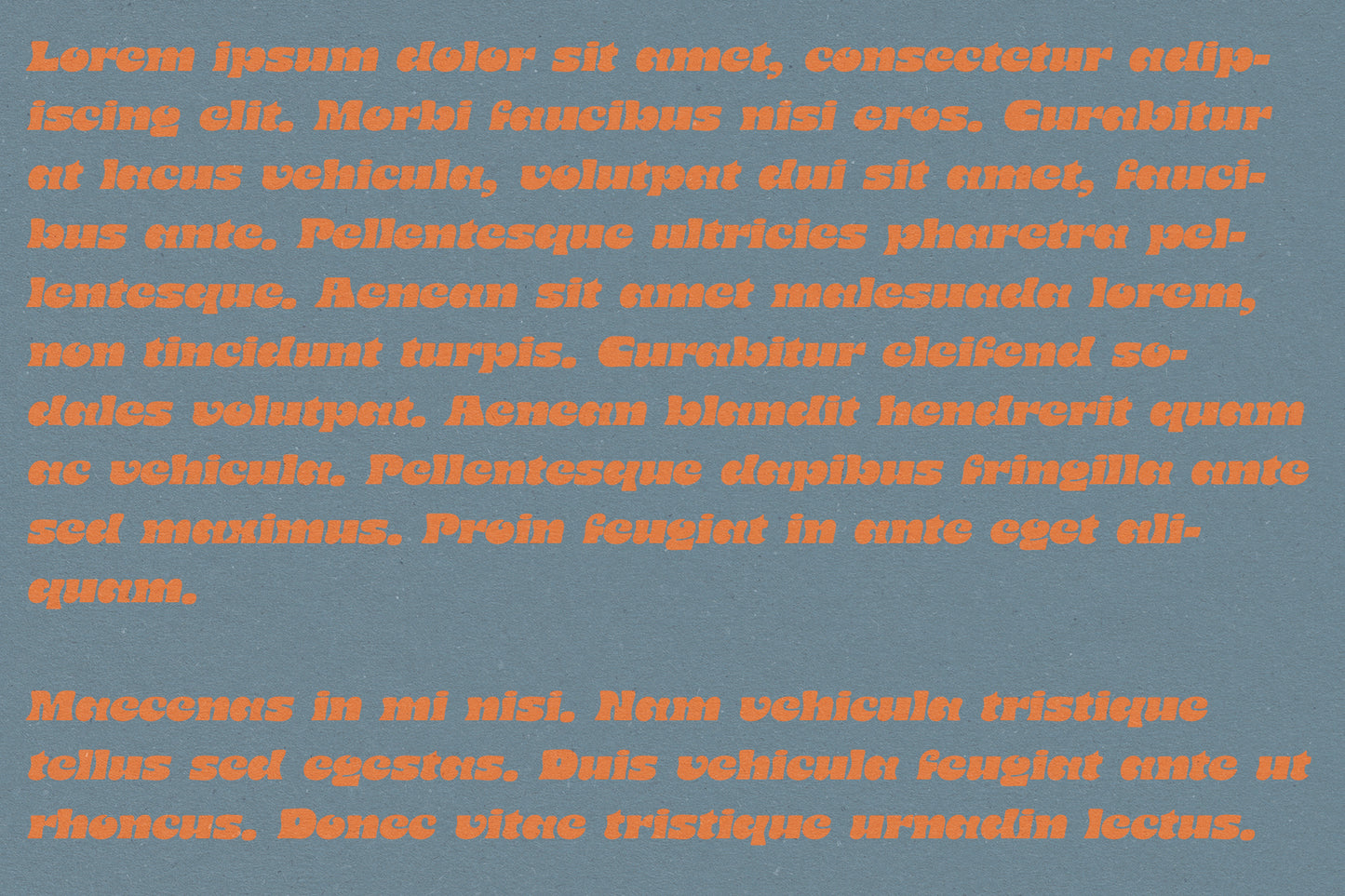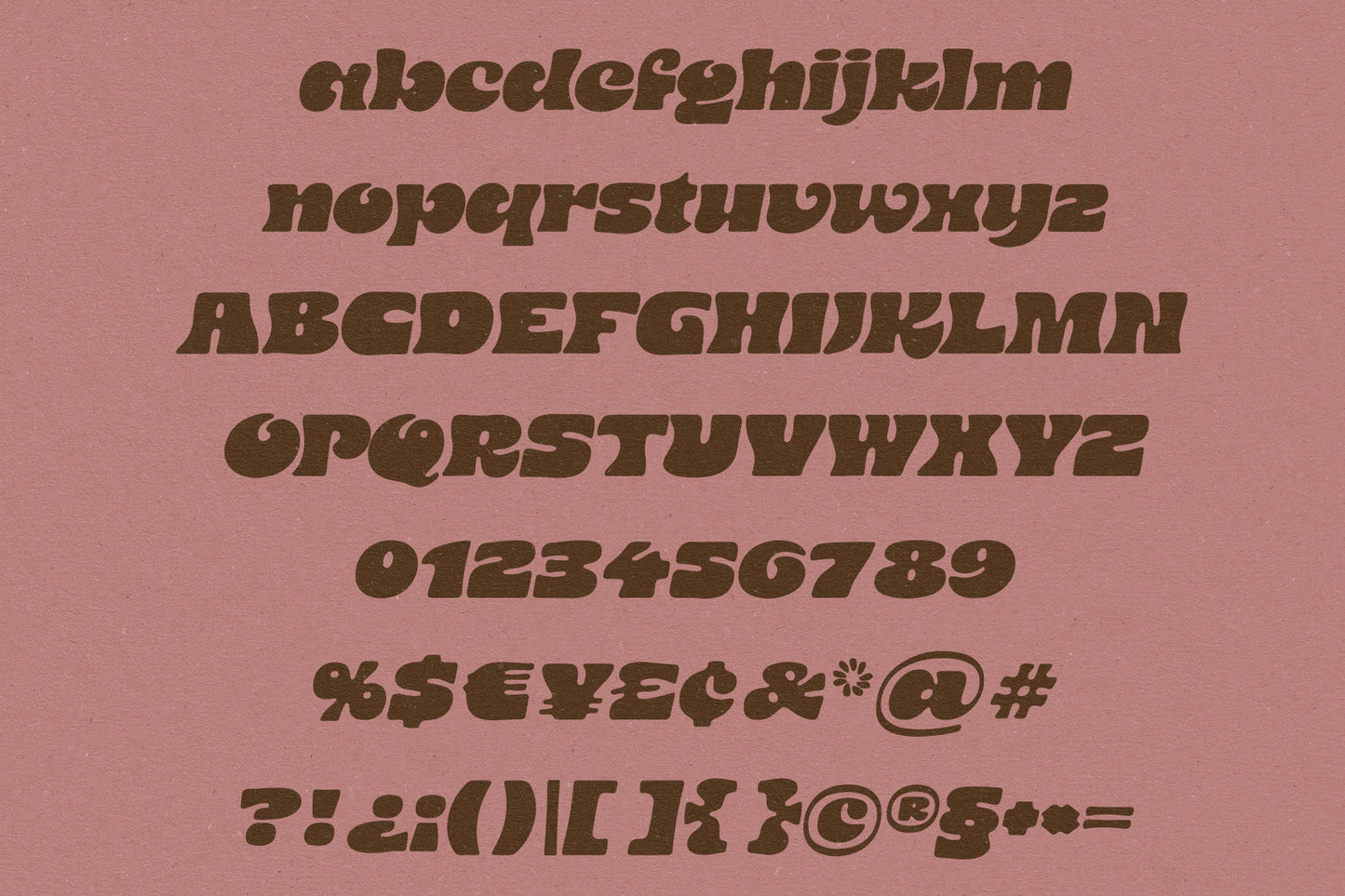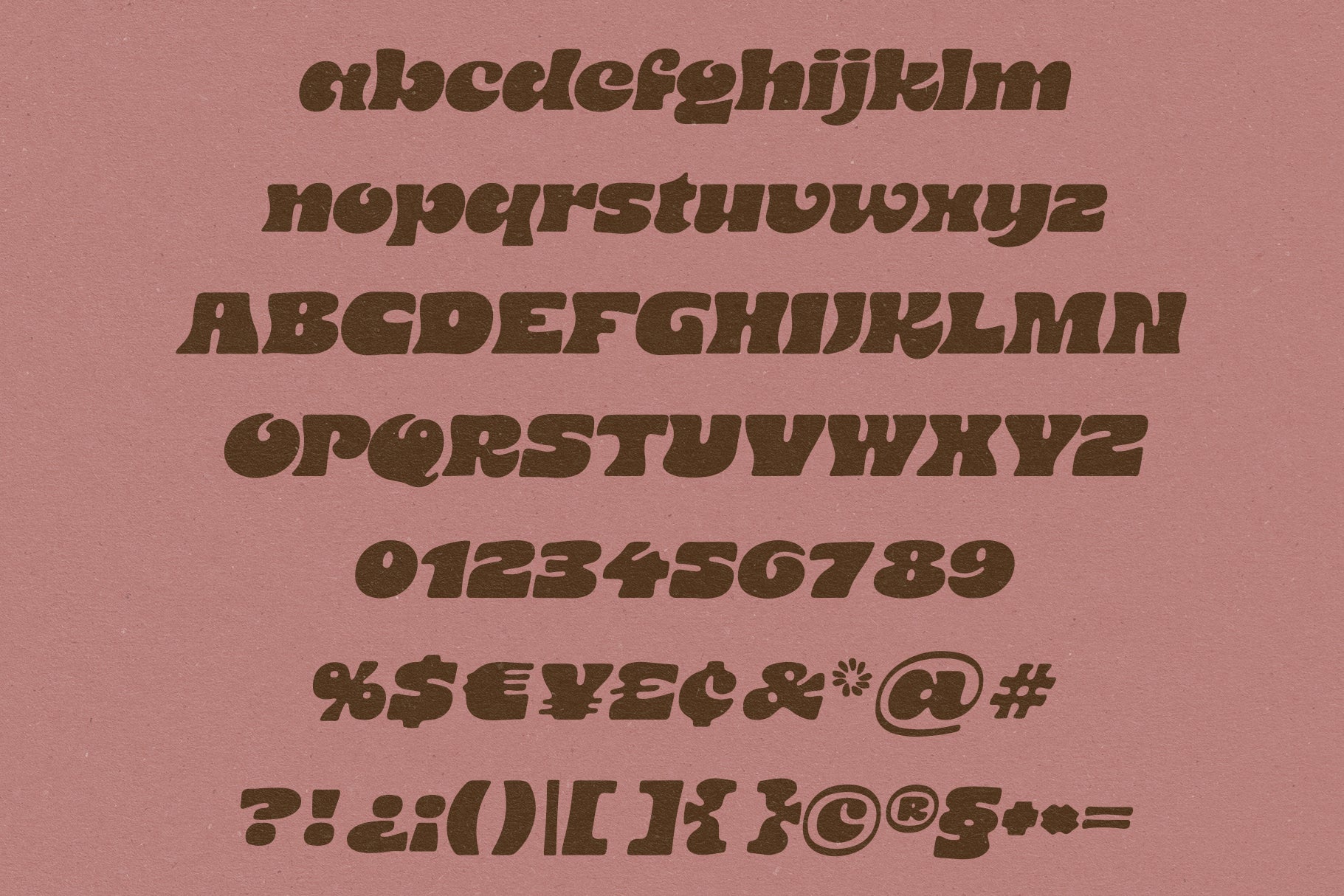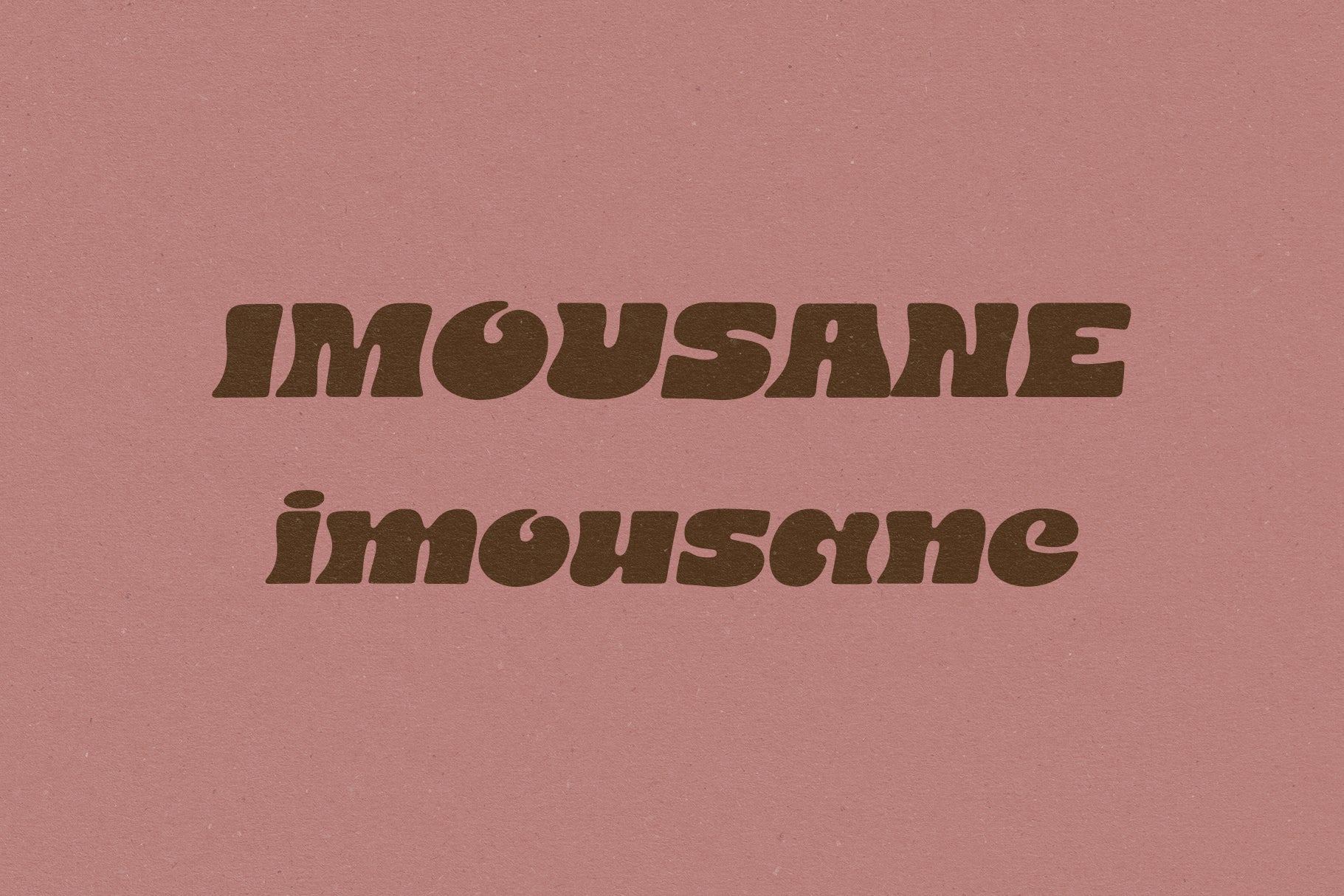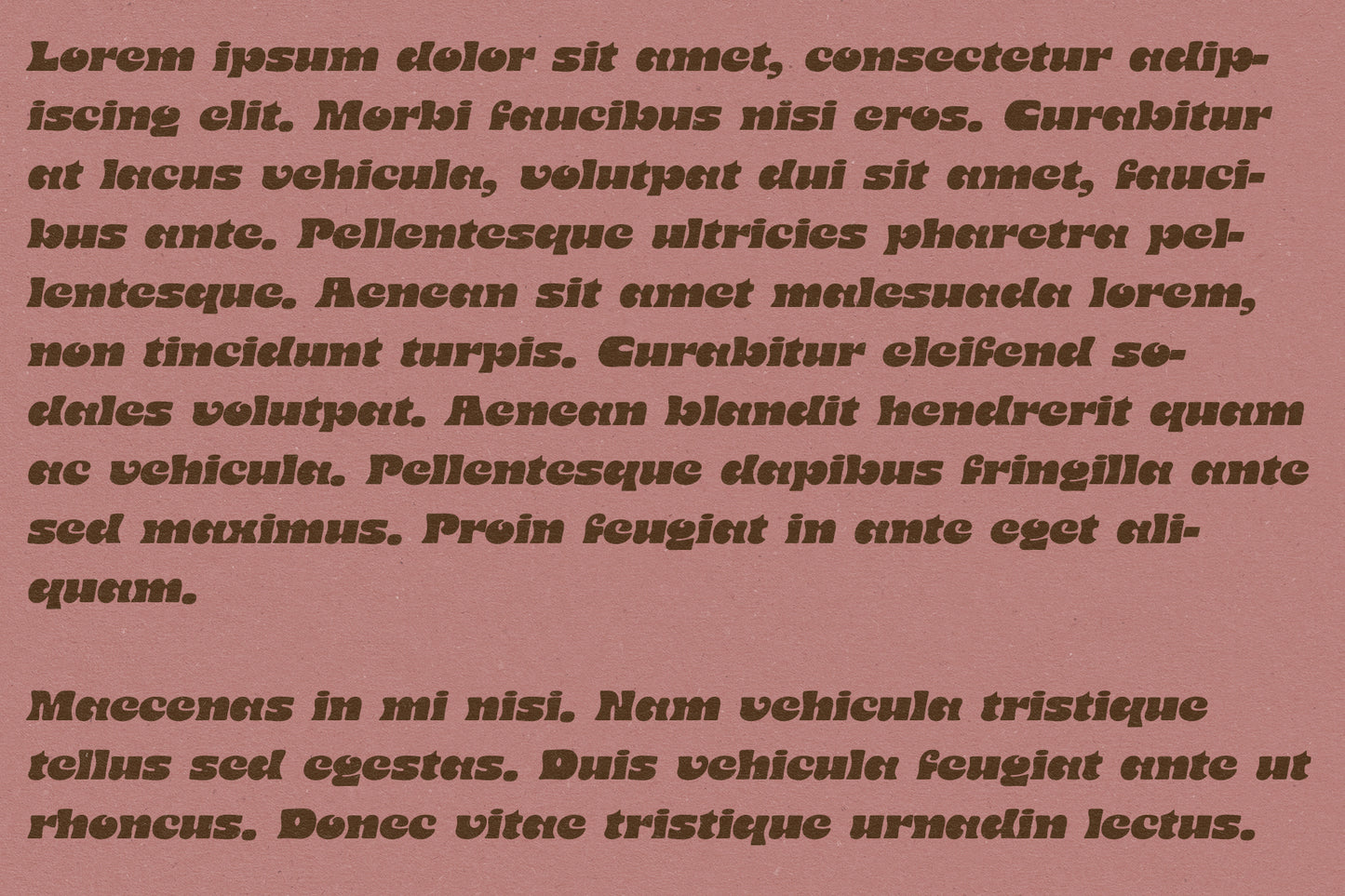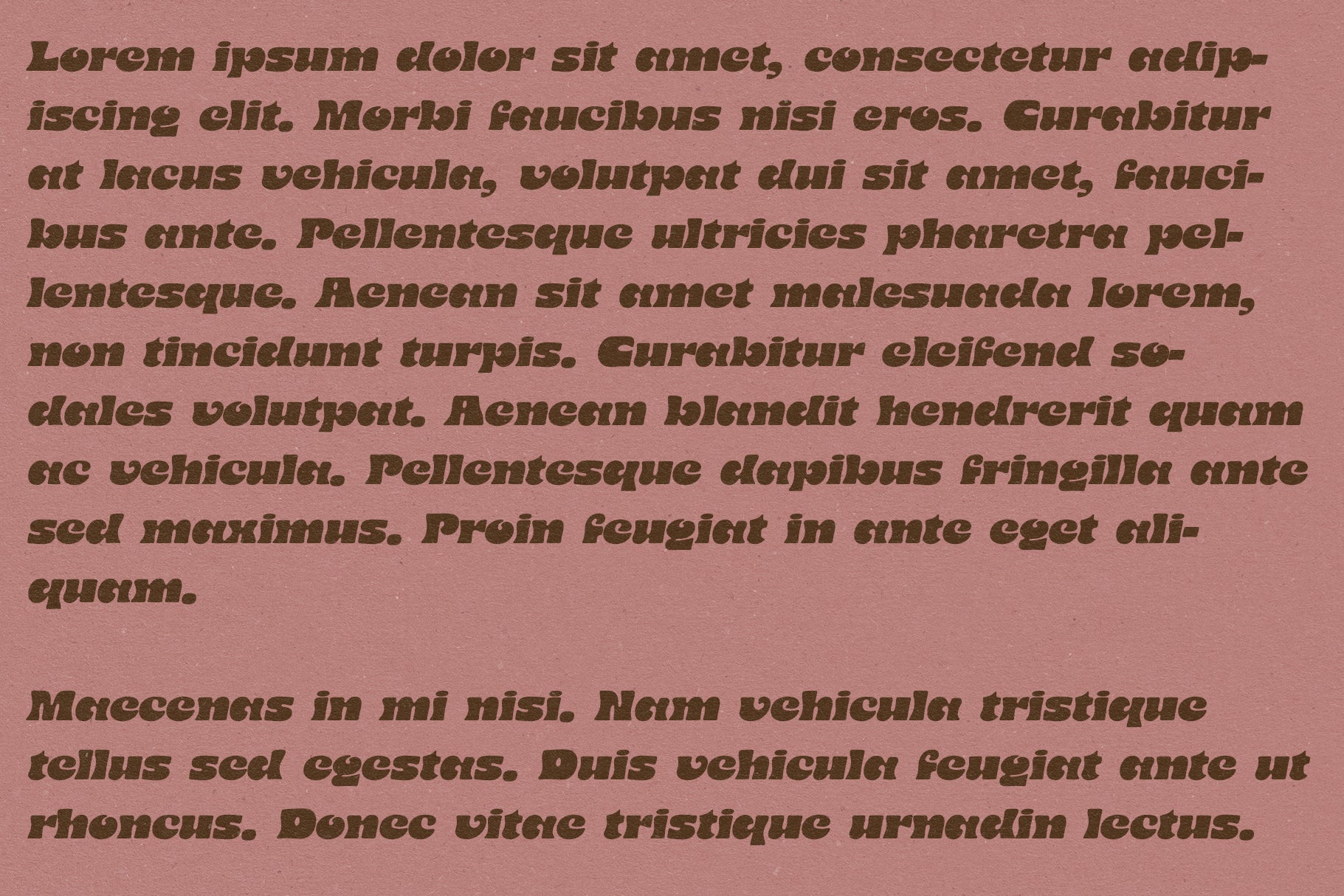
Imousane Typeface
A chunky, bold, italic display typeface inspired by vintage surf aesthetics. This one has super chunky caps and fun swirly smalls which make for a great font for ads, posters, tees, logos and anything where you want your letters to stand out!